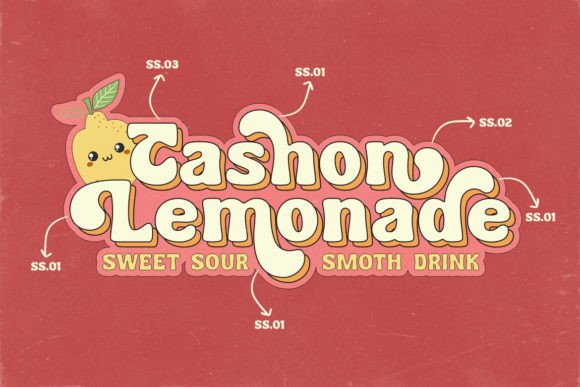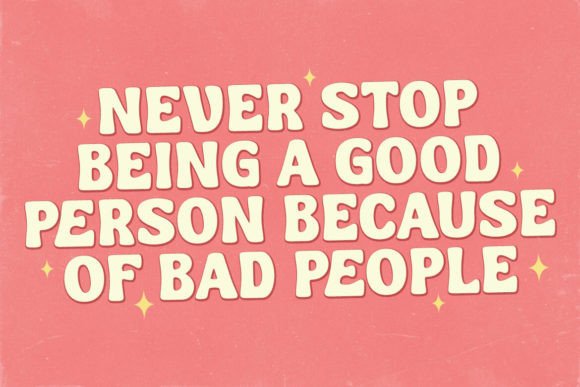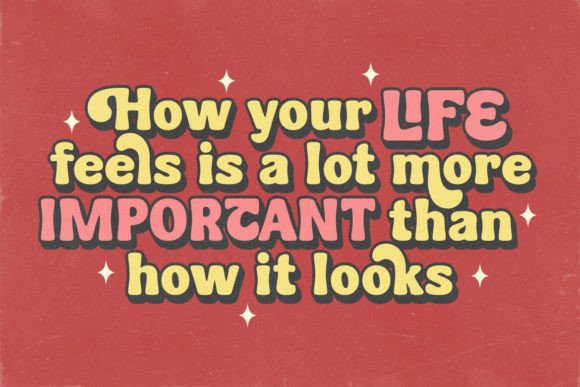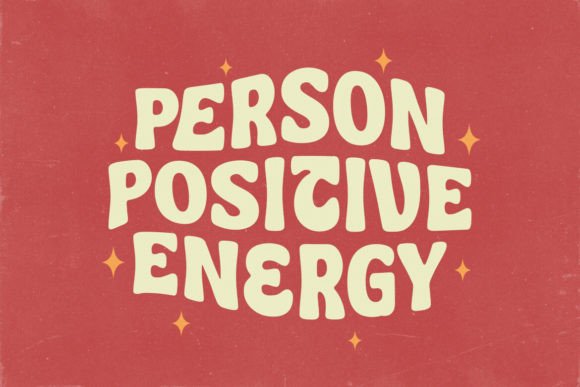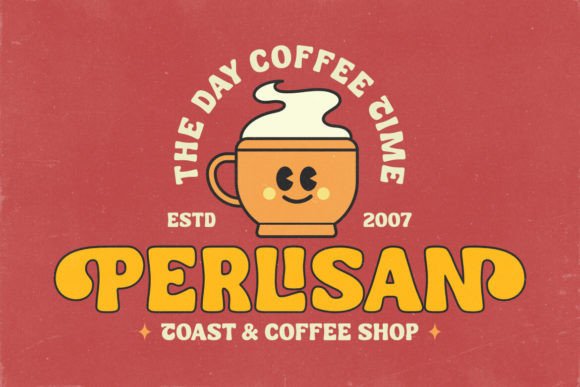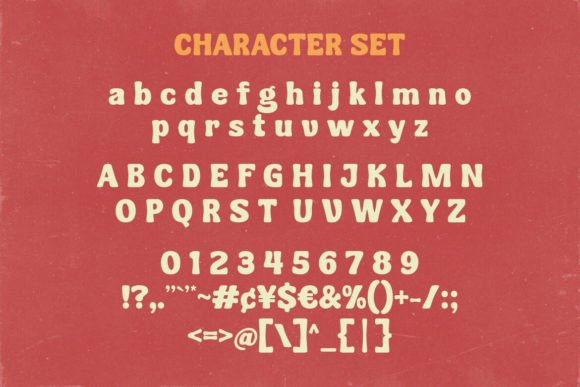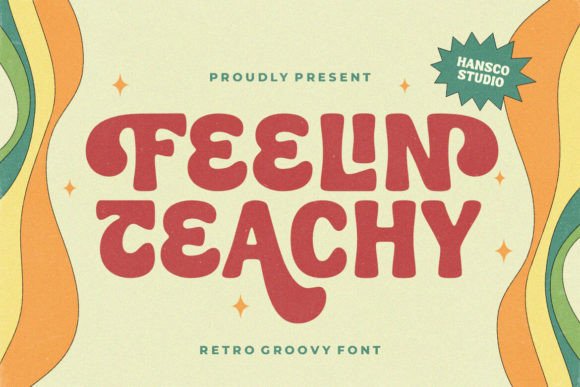
Introducing Feelin Teachy Font: A Vintage Serif Typeface for Creative Designs
Are you a designer or crafter looking for a unique and stylish font to elevate your creative projects? Look no further than Feelin Teachy Font, a beautiful serif typeface with a vintage and retro look that’s sure to capture attention. In this article, we’ll explore the features and benefits of Feelin Teachy Font, and how it can be used to enhance your designs.
Aesthetic Appeal of Feelin Teachy Font
Feelin Teachy Font boasts a distinctive vintage and retro aesthetic that’s perfect for designers who want to add a touch of nostalgia to their work. The serif typeface features classic lines and curves that evoke a sense of timelessness, making it ideal for projects that require a sophisticated and elegant look.
Whether you’re designing a logo, creating a poster, or crafting a brand identity, Feelin Teachy Font is sure to impress. Its unique character set includes uppercase letters, lowercase letters, numbers, punctuation marks, and multi-lingual support, making it a versatile font that can be used in a wide range of applications.
Key Features of Feelin Teachy Font
• Complete Character Set: Feelin Teachy Font features a comprehensive character set that includes uppercase letters, lowercase letters, numbers, punctuation marks, and multi-lingual support.
• Vintage and Retro Look: The font’s serif typeface has a distinctive vintage and retro aesthetic that’s perfect for designers who want to add a touch of nostalgia to their work.
• High-Quality Design: Feelin Teachy Font is designed with high-quality lines and curves that ensure crisp and clear rendering, even at small sizes.
• Multi-Lingual Support: The font supports multiple languages, making it a great choice for designers who work on international projects.
Use Cases for Feelin Teachy Font
Feelin Teachy Font is an incredibly versatile font that can be used in a wide range of creative projects. Here are some ideas to get you started:
• Logotype: Use Feelin Teachy Font to create a unique and memorable logo for your brand or business.
• Stickers: Add a touch of vintage charm to your stickers with Feelin Teachy Font.
• Packaging Design: Use the font to create eye-catching packaging that stands out on store shelves.
• Cricut Projects: Feelin Teachy Font is perfect for Cricut projects, including paper crafts, iron-on designs, and more.
• Headlines: Use the font to create bold and attention-grabbing headlines for your website, blog, or social media channels.
• Brand Identity: Establish a consistent brand identity with Feelin Teachy Font, perfect for use on business cards, letterheads, and more.
• T-Shirt or Apparel: Create stylish and unique apparel with Feelin Teachy Font, perfect for use on t-shirts, hoodies, and more.
• Posters: Use the font to create eye-catching posters for events, promotions, or advertising campaigns.
• Magazines and Books: Add a touch of elegance to your magazine or book design with Feelin Teachy Font.
• YouTube and Instagram: Use the font to create engaging and stylish video titles, descriptions, and captions for YouTube and Instagram.
• Websites: Enhance your website’s typography with Feelin Teachy Font, perfect for use on headings, titles, and more.
• Canva and Corjl: Use Feelin Teachy Font in your Canva and Corjl designs, including social media graphics, presentations, and more.
Why Choose Feelin Teachy Font?
Feelin Teachy Font is an excellent choice for designers and crafters who want a unique and stylish font that can elevate their creative projects. Here are some reasons why:
• Unique Aesthetic: Feelin Teachy Font has a distinctive vintage and retro look that’s sure to capture attention.
• High-Quality Design: The font is designed with high-quality lines and curves that ensure crisp and clear rendering, even at small sizes.
• Versatility: Feelin Teachy Font can be used in a wide range of creative projects, from logotypes to stickers, packaging design, and more.
• Easy to Use: The font is easy to install and use, making it perfect for designers and crafters of all skill levels.
Feelin Teachy Font is a beautiful serif typeface with a vintage and retro look that’s perfect for designers and crafters who want to add a touch of elegance and sophistication to their creative projects. With its comprehensive character set, high-quality design, and versatility, Feelin Teachy Font is an excellent choice for a wide range of applications. Whether you’re designing a logo, creating a poster, or crafting a brand identity, Feelin Teachy Font is sure to impress.